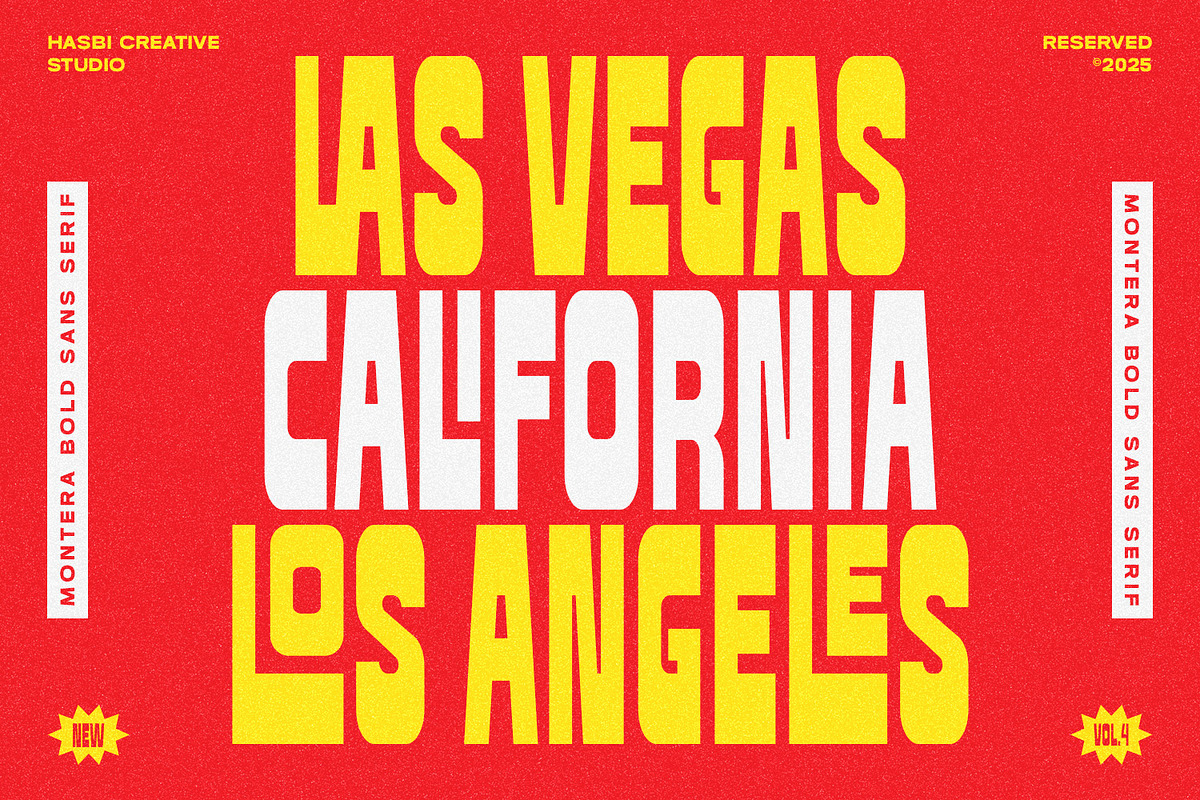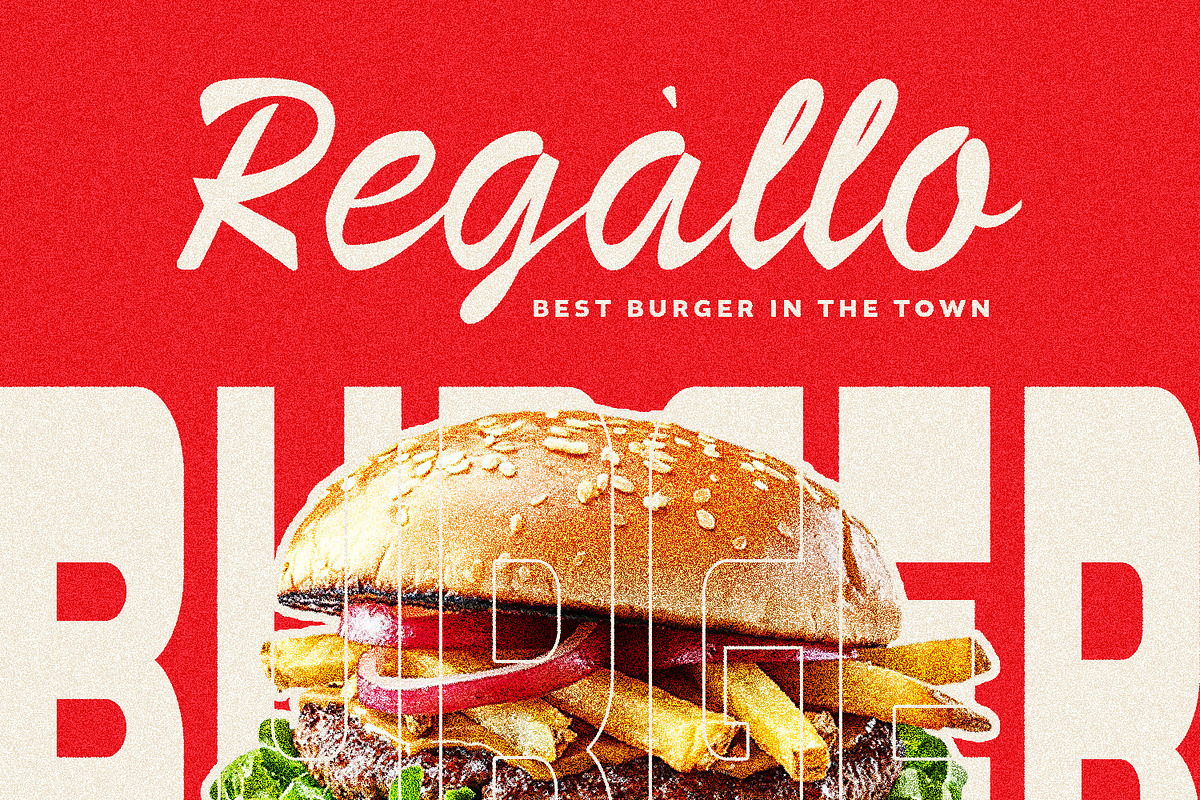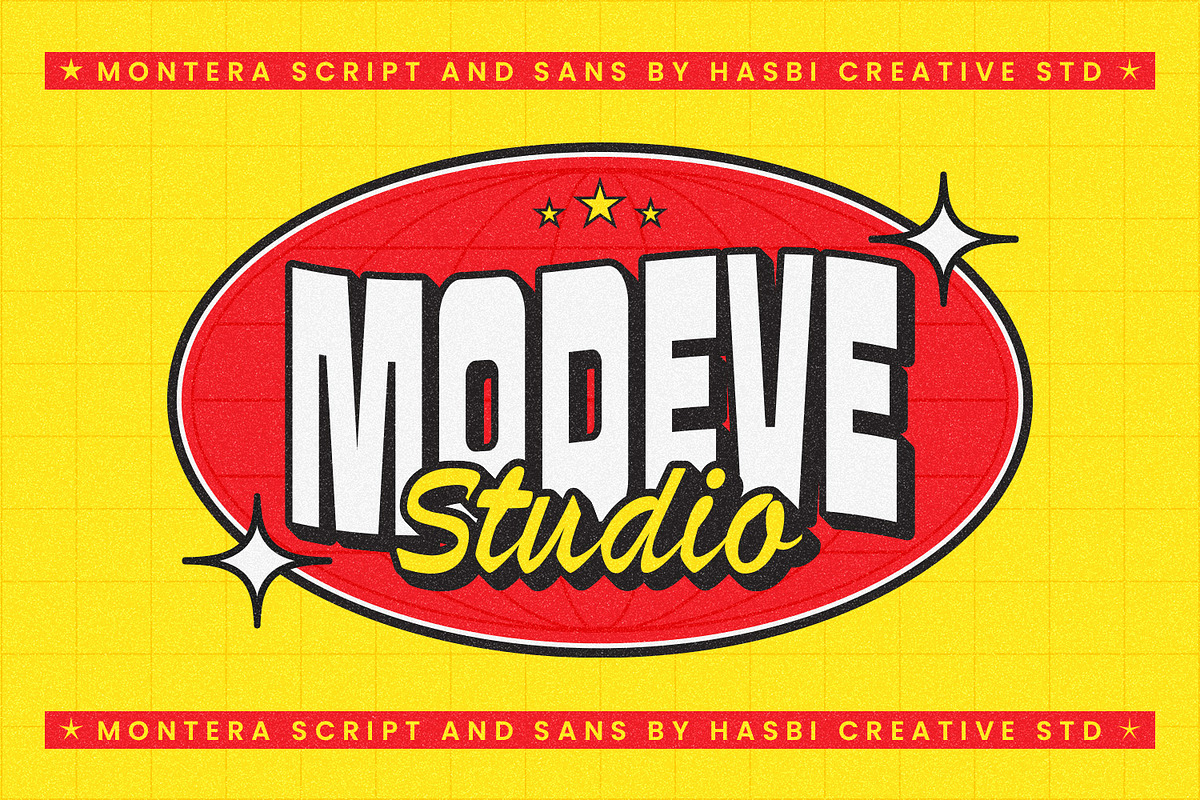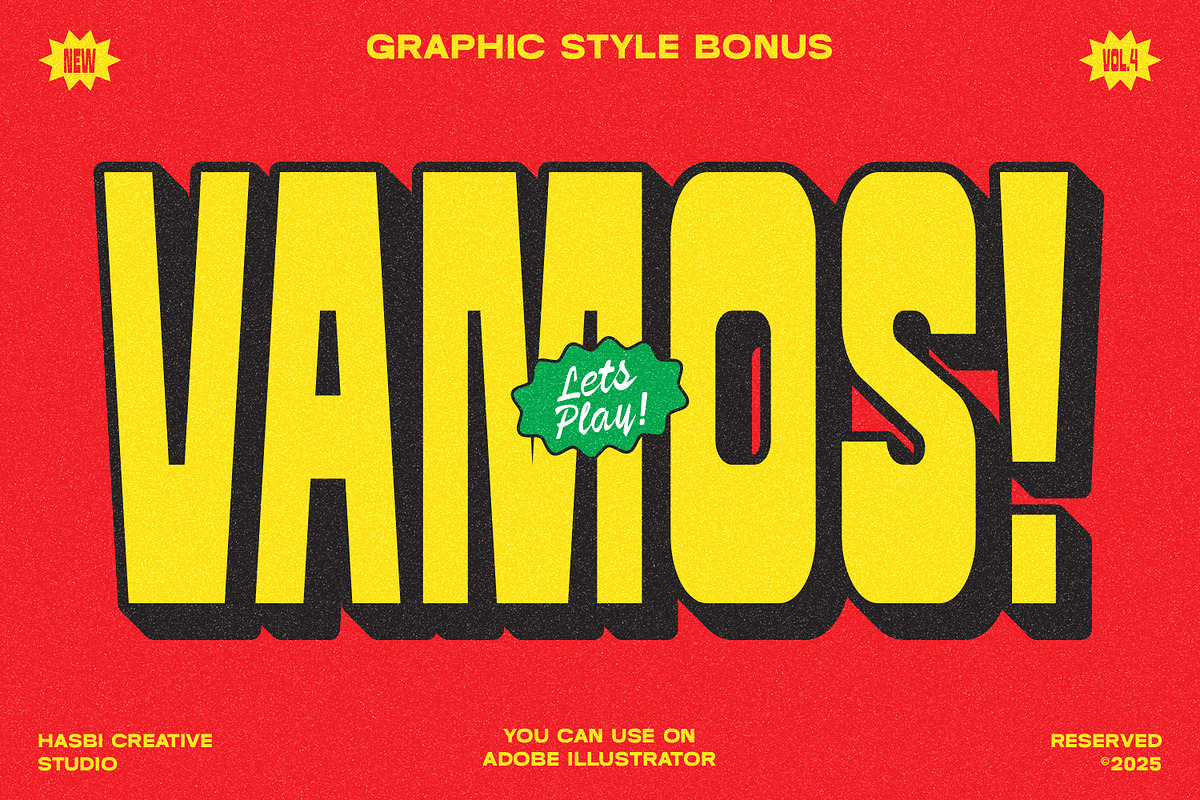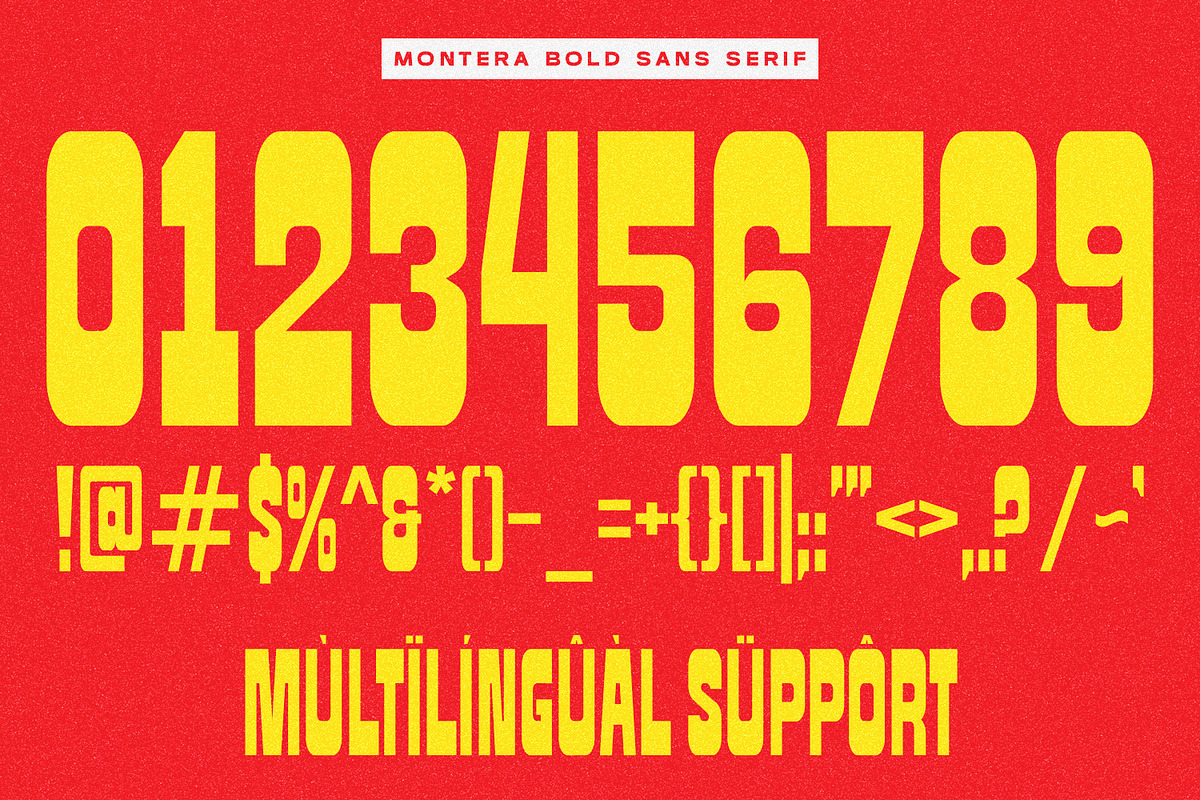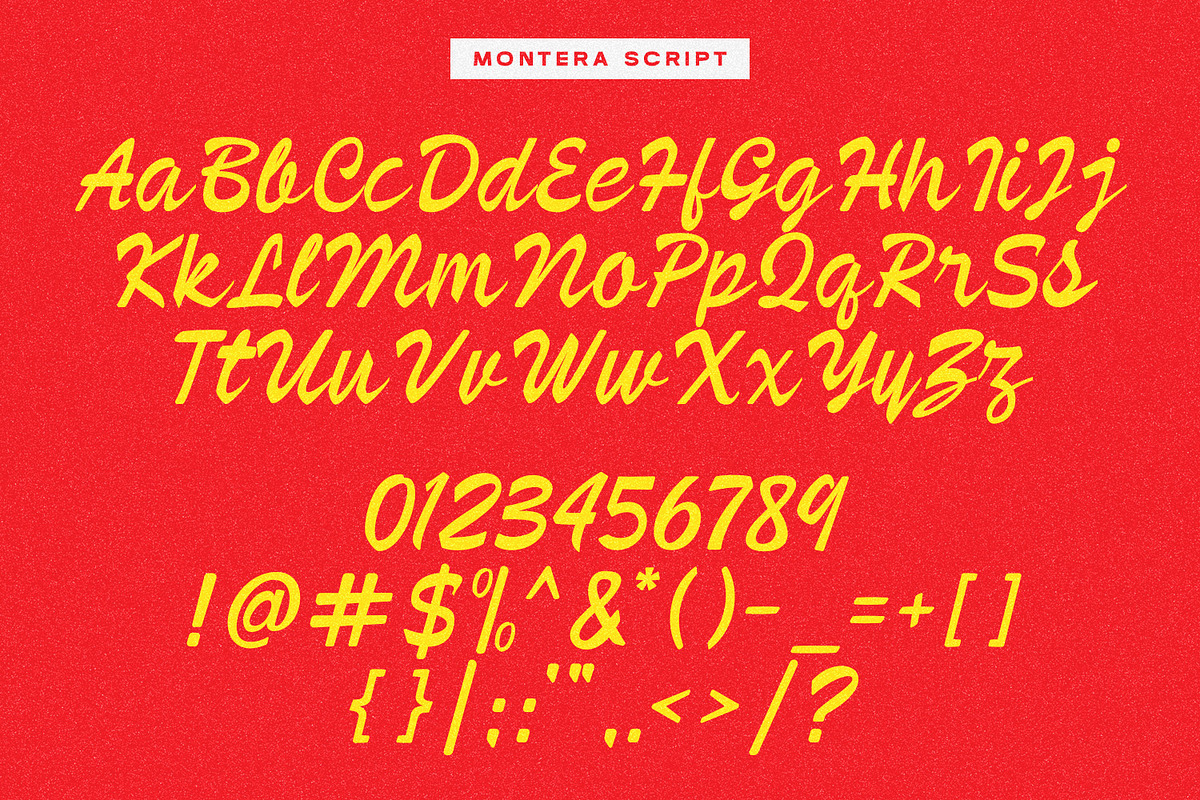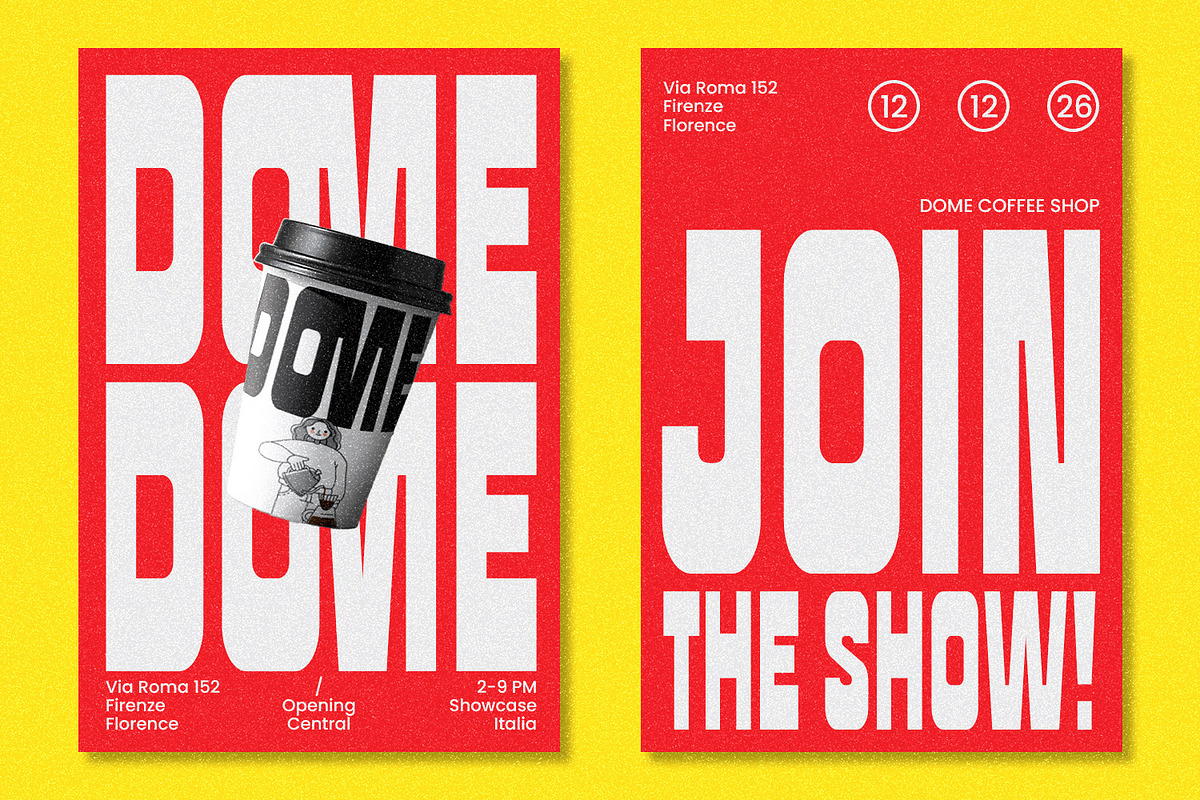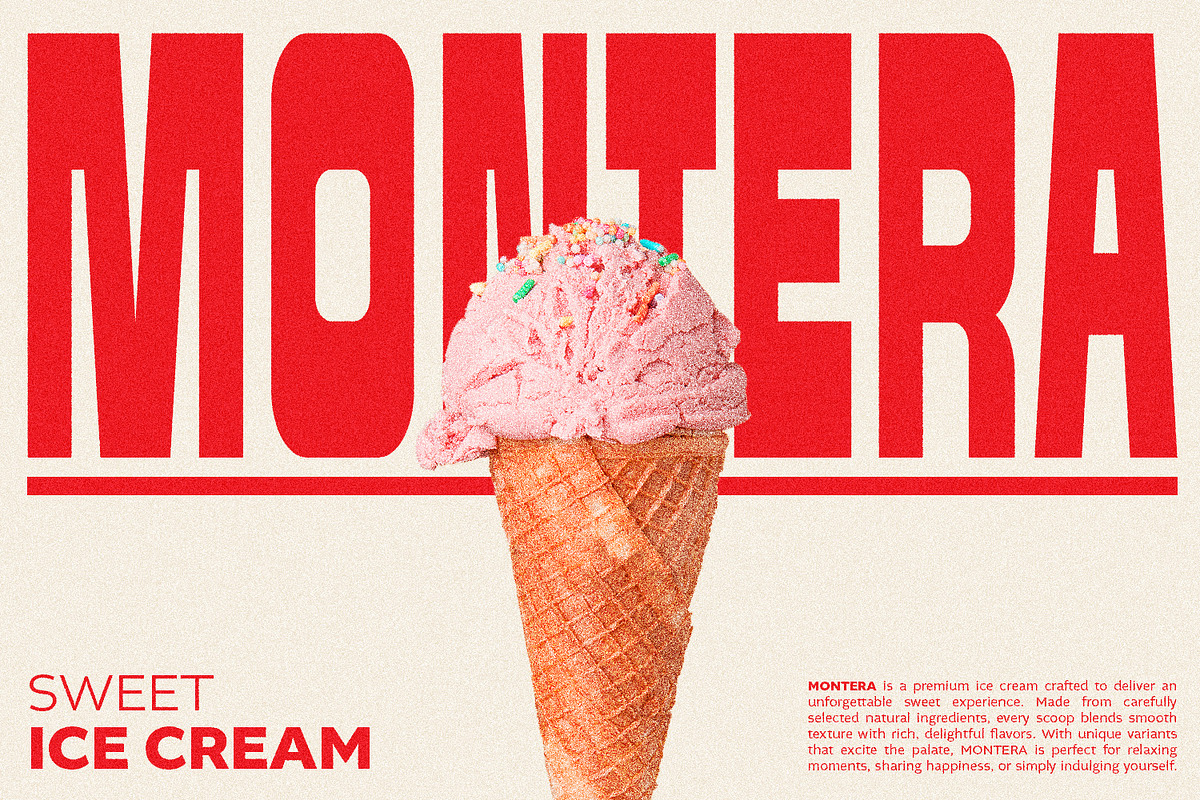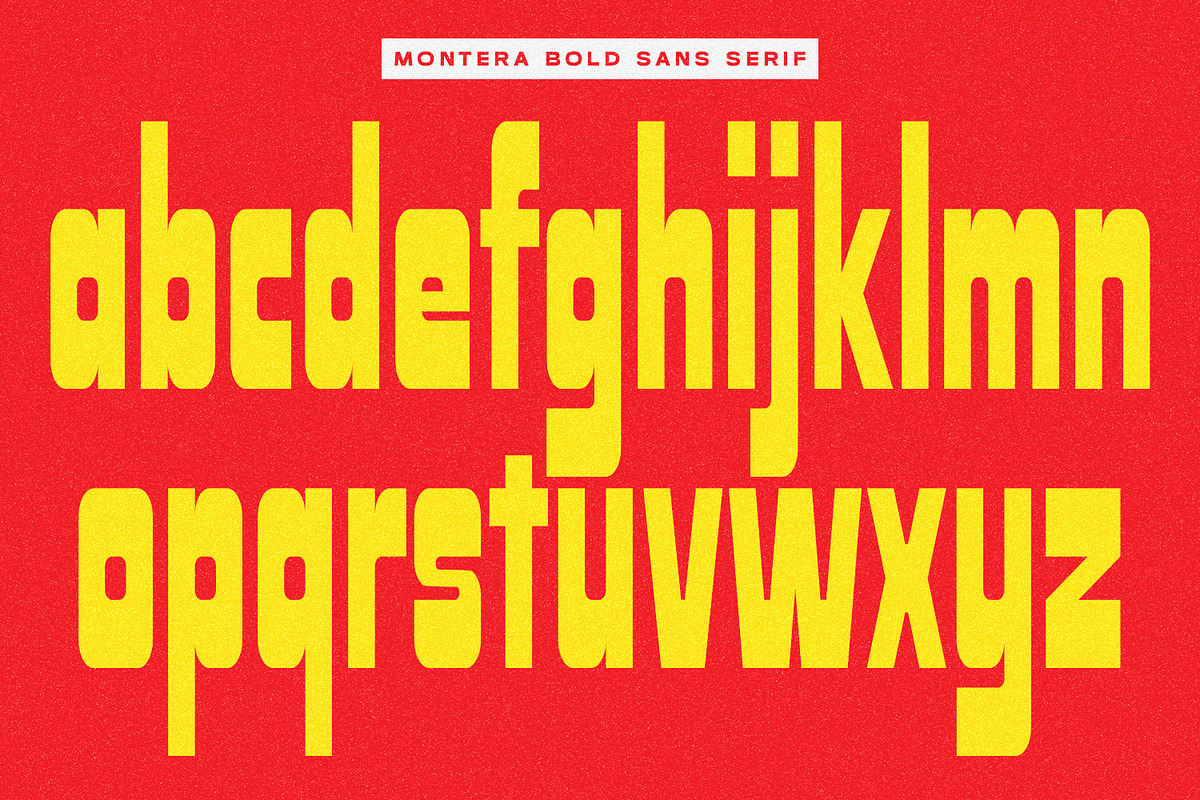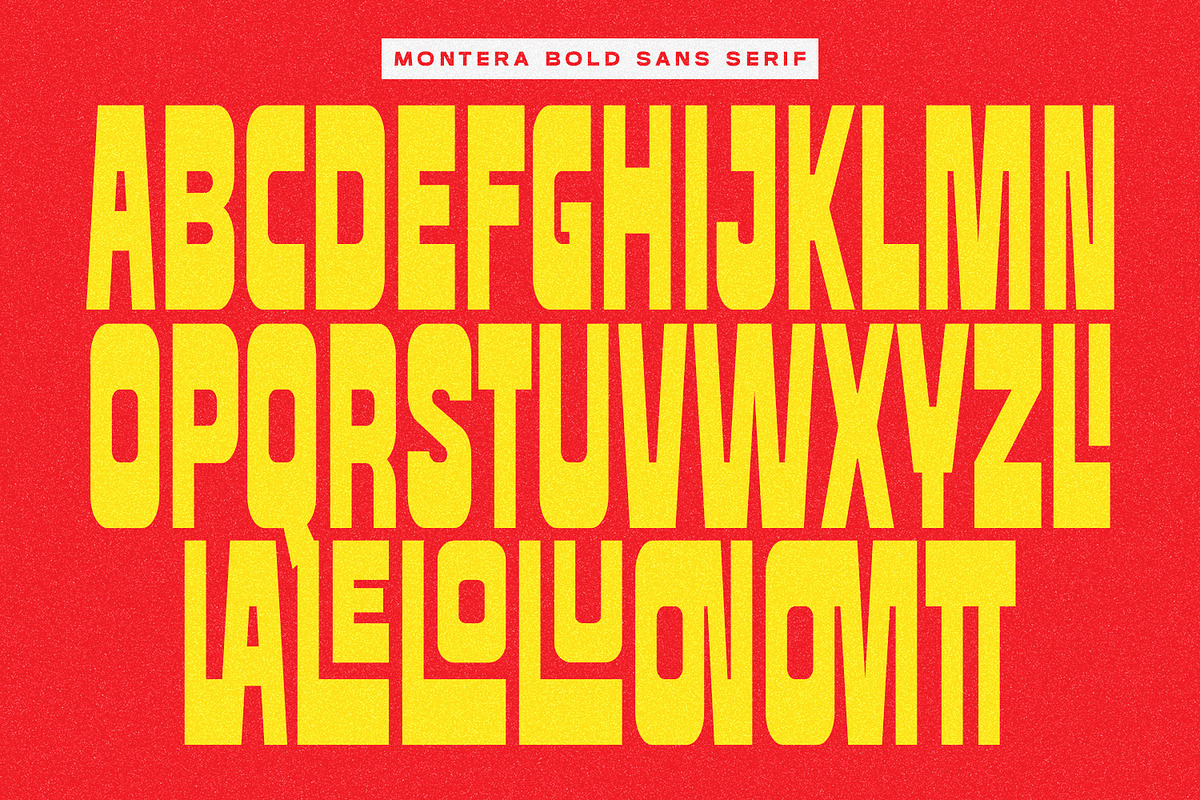
Montera - Retro Bold Sans & Script
Montera Font Duo is a bold and stylish typeface combination crafted to bring both power and elegance to your creative projects. This duo pairs a striking retro-inspired sans serif with a flowing handwritten script—perfect for logos, branding, posters, packaging, and editorial design.
To make your work stand out even more, Montera includes a bonus Adobe Illustrator Graphic Style, allowing you to instantly apply a 3D effect to your text. With just one click, your typography will look dimensional and professional—ideal for headlines, merchandise, or social media graphics.
Uppercase & lowercase
Ligatures (Sans Serif)